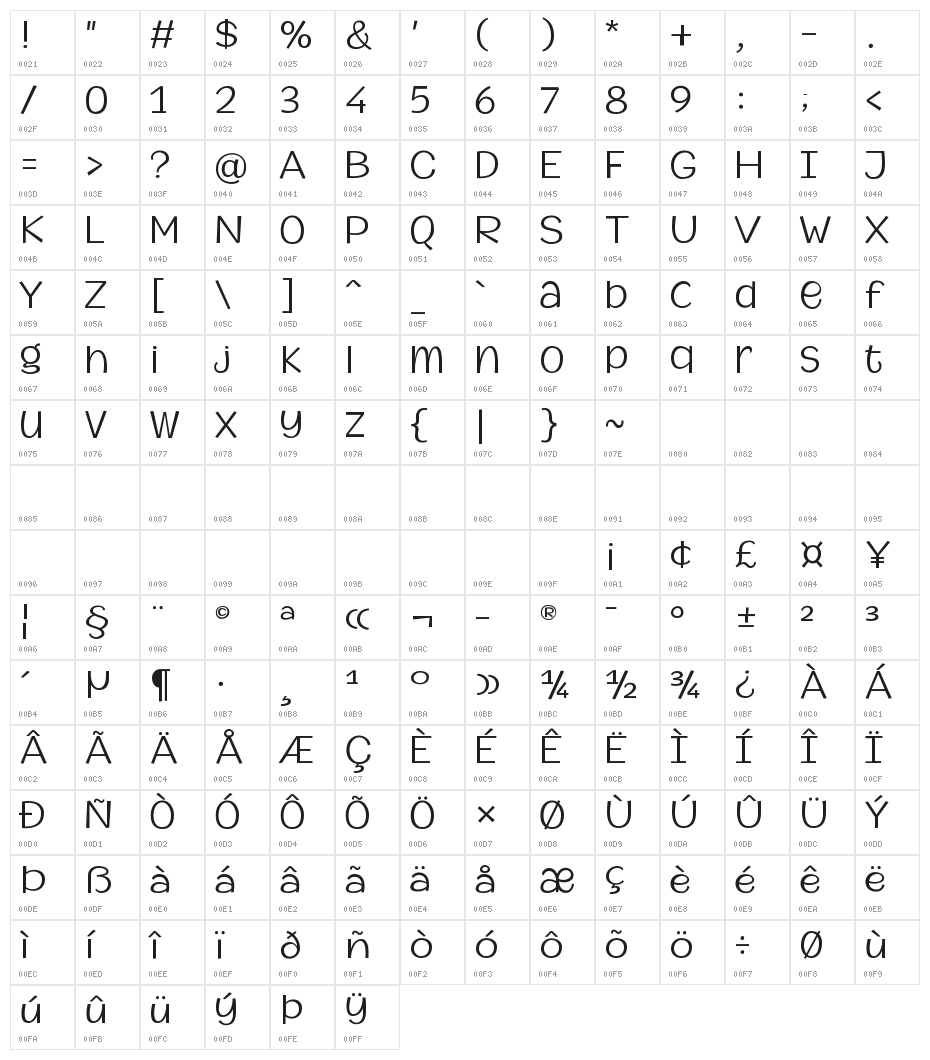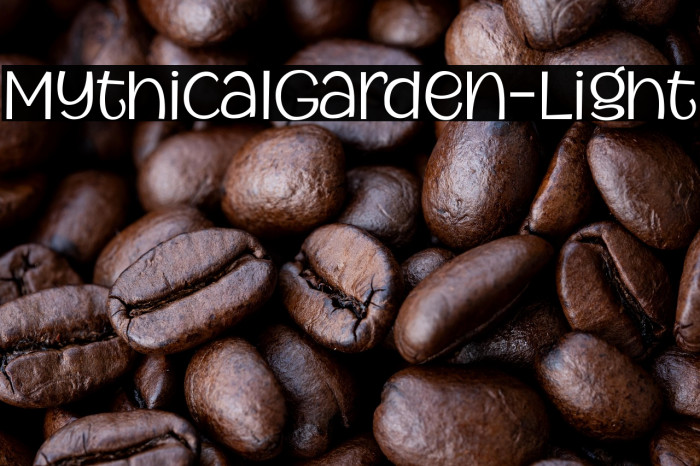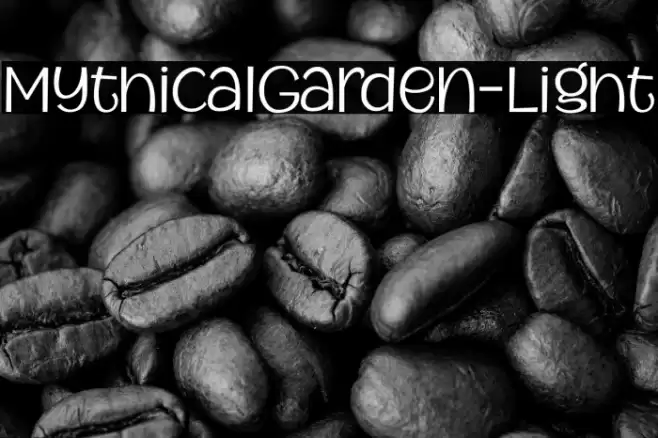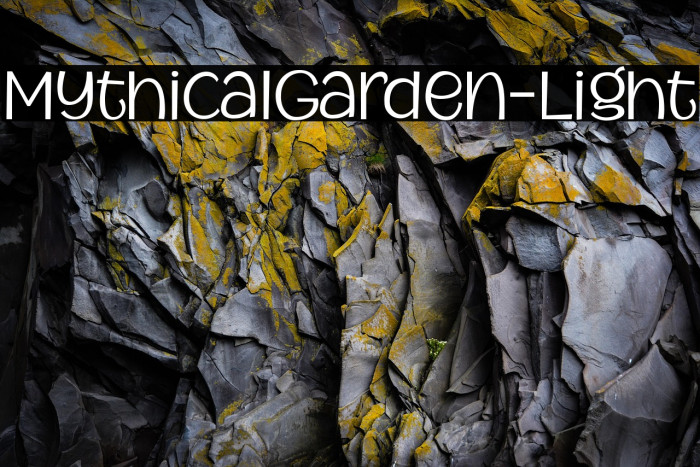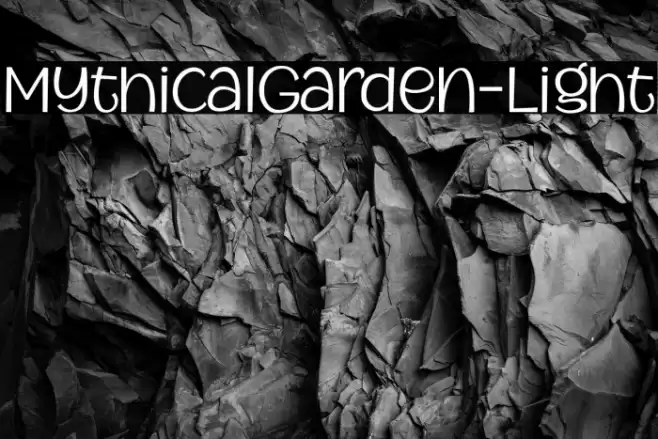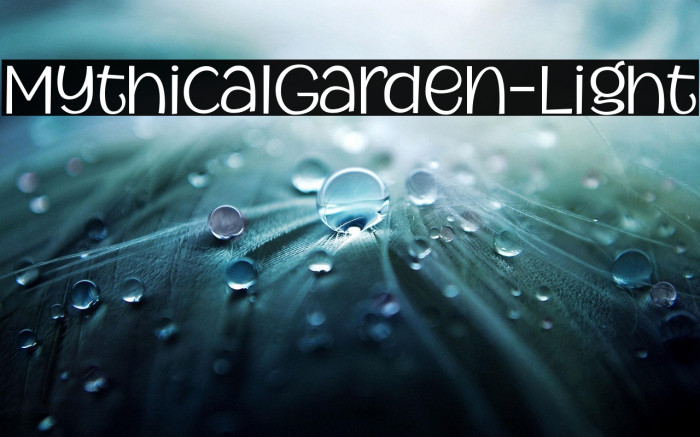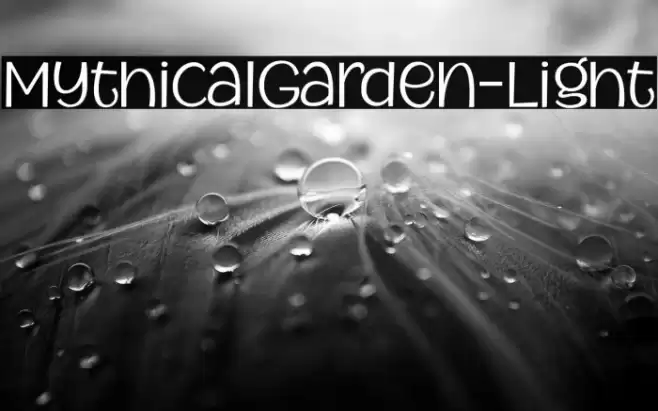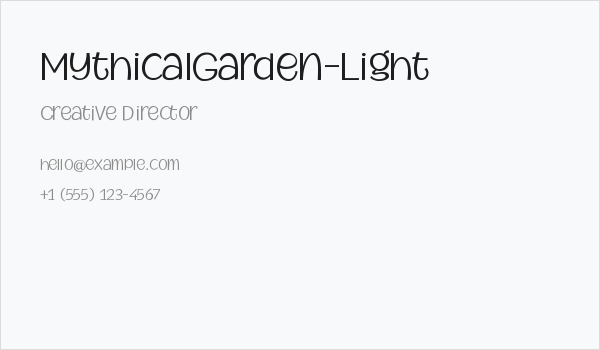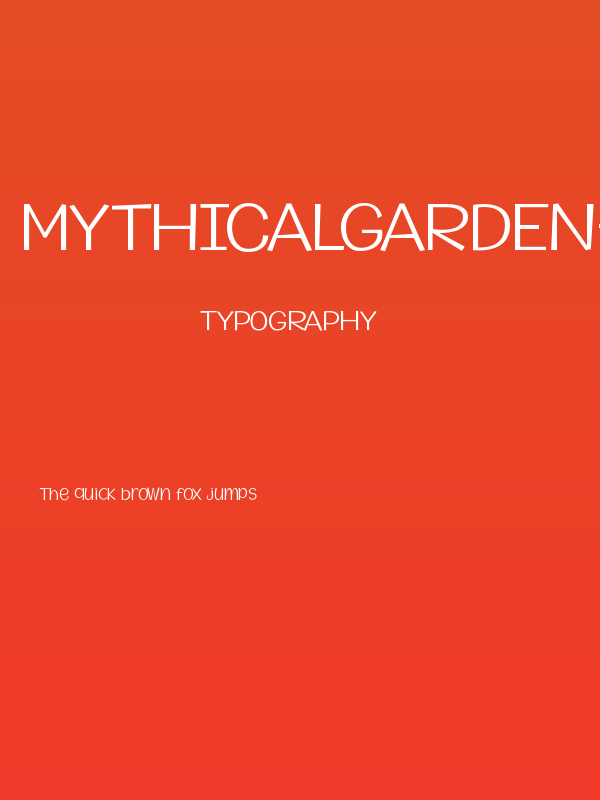
MythicalGarden-Light Font
MythicalGarden-Light Description
This font features a playful and whimsical design, characterized by its rounded edges and slightly irregular strokes. The uppercase letters are bold and prominent, while the lowercase letters maintain a consistent flow with a touch of elegance. Numbers are clear and easy to read, matching the overall style of the alphabet. The special characters are creatively designed, adding a unique flair to the font. Its light weight and modern aesthetic make it suitable for a variety of creative projects.
| Proposed Projects | Ideal for children's books, creative branding, playful posters, and whimsical invitations. |